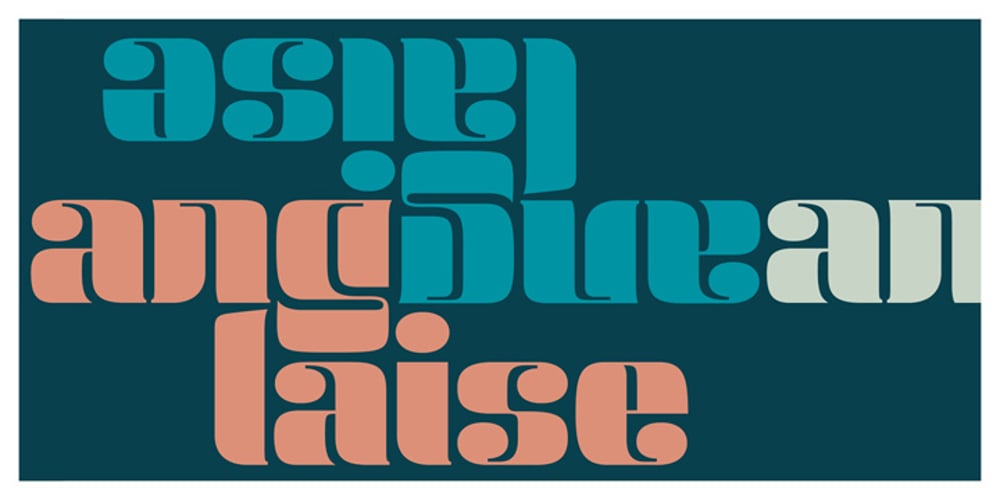
Anglaise Font Family was designed by Anette Schmidt and published by Ladyfingers. Anglaise contains 1 styles and family package options. Anglaise was designed for display and it likes to be big and present, filling the width of a whole spread. The repetition of vertical black and white space holds the typeface together and the contrasting straight and round shapes add the personality… for even more… use the OpenType features, and Anglaise will start merging and building new characters for you to play around with… Enjoy!